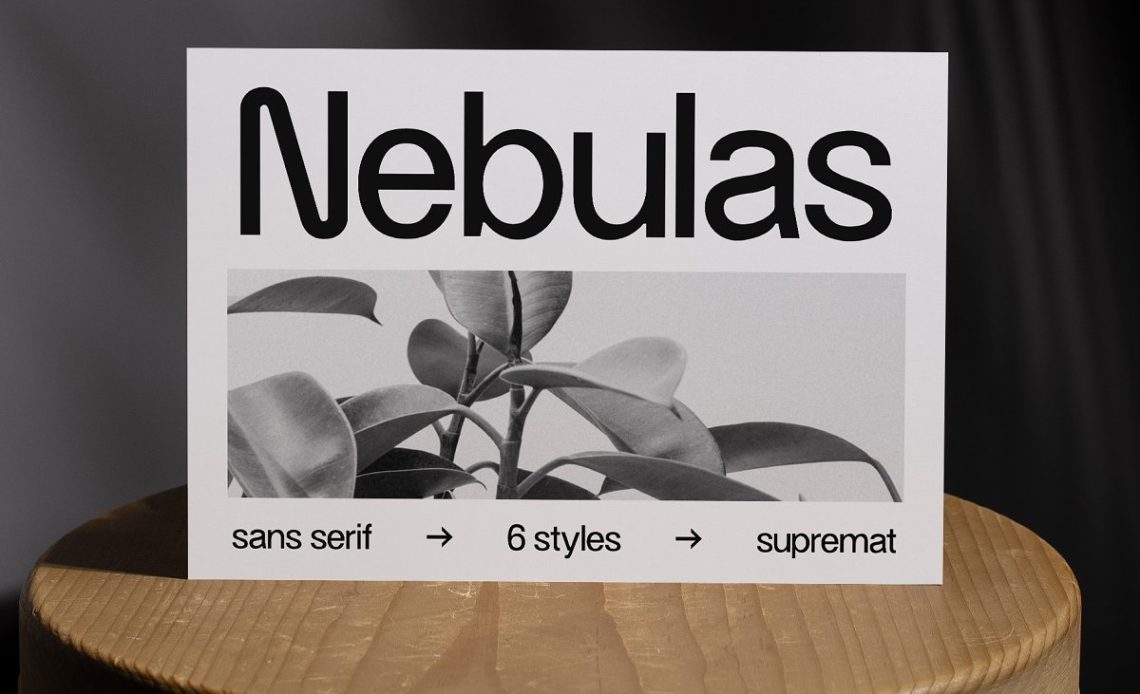
Looking for a font that will make your modern resume stand out from the rest? Look no further than Nebulas Font! Created by renowned font designer Roman Postovoy, this elegant sans serif font is inspired by the classic Helvetica and Univers fonts. Its simplicity and sophistication make it the perfect choice for minimalist, modern typography.
Nebulas Font is a perfect choice for large and medium-sized headlines thanks to its dense kerning. The font's standout feature is its unique N and K letters, which add a touch of spacey vibe to any design. Its versatility makes it perfect for a range of design projects, from resume design to branding and advertising.
With its captivating and sleek design, Nebulas Font is sure to leave a lasting impression on anyone who sees it. The font is perfect for designers who are looking for a font that is both stylish and functional. Whether you're creating a resume, designing a website or developing an advertising campaign, Nebulas Font is the perfect choice.